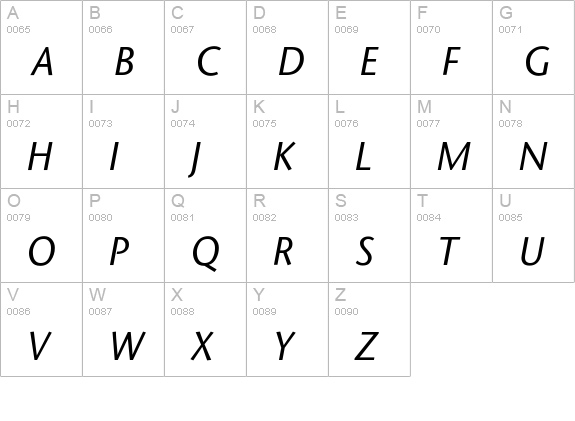
SapirSansItal font is a beautiful and elegant typeface that exudes sophistication and style. Its sleek and slanted design adds a touch of modernity to any project, making it perfect for both professional and creative endeavors. With its strong and graceful curves, this italic font brings a sense of fluidity and movement to your typography. One of the most appealing aspects of SapirSansItal font is that it is free. Yes, you read that right - free! This means that you can add a touch of elegance to your designs without having to spend a penny. Whether you are working on branding, logo design, web design, or any other creative project, SapirSansItal font is the perfect choice. To get your hands on this fantastic font, simply head over to FontsMarket.com. There, you can freely download SapirSansItal font and start incorporating its beauty into your designs immediately. The user-friendly website makes it easy to find and download the font, ensuring a smooth and hassle-free experience. Don't miss out on the opportunity to enhance your designs with the exquisite SapirSansItal font. Download it for free at FontsMarket.com and watch as your typography comes alive with elegance and style.